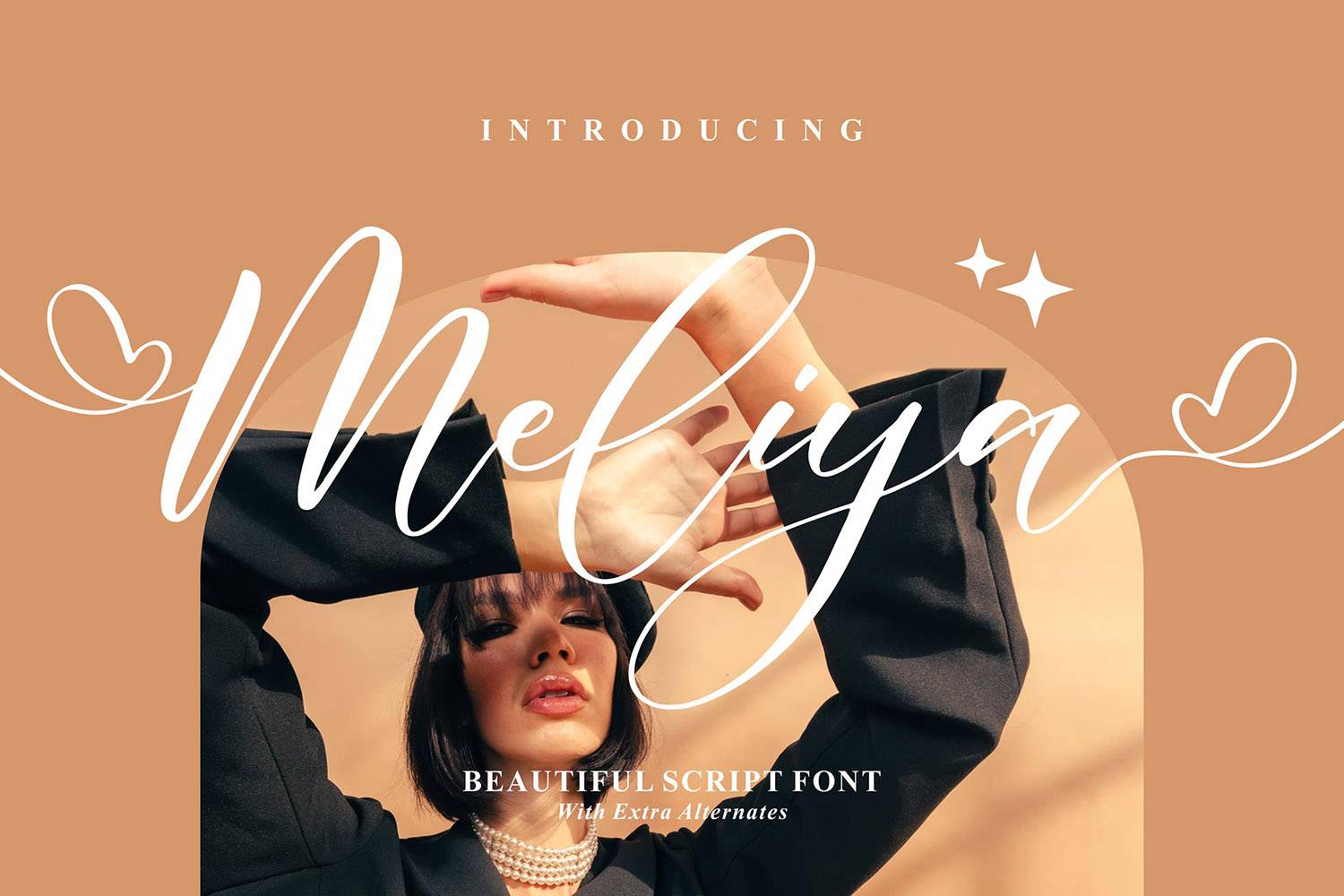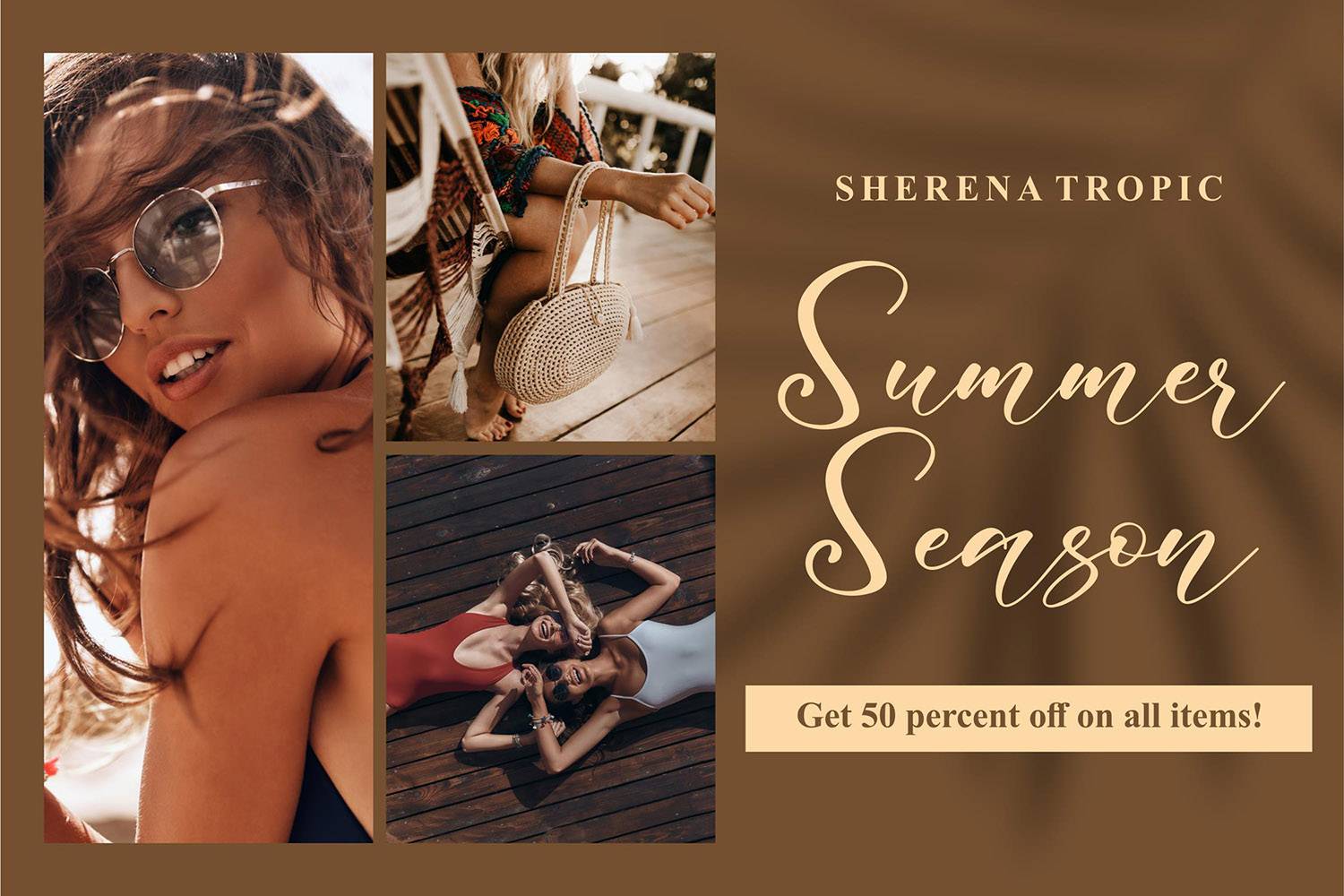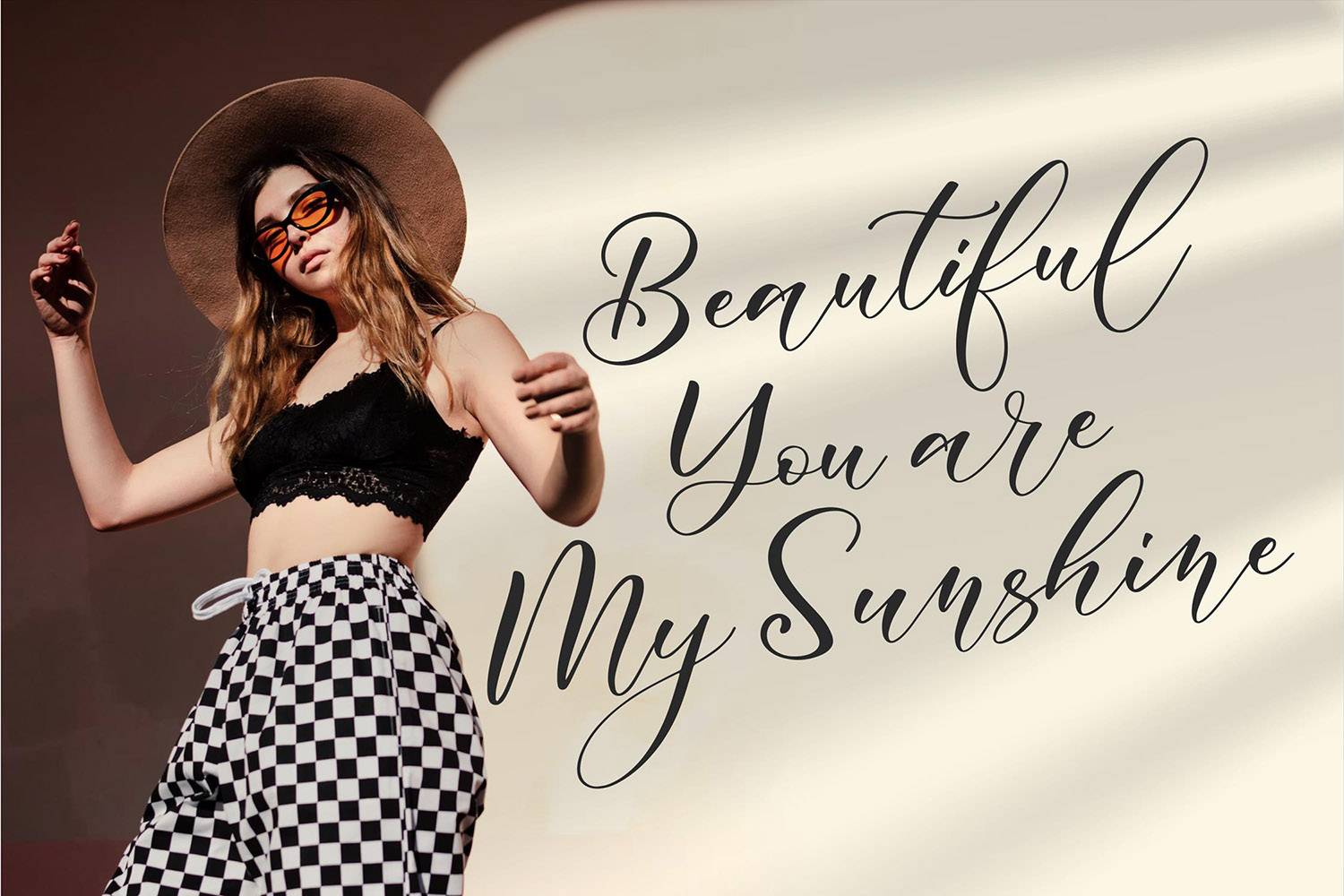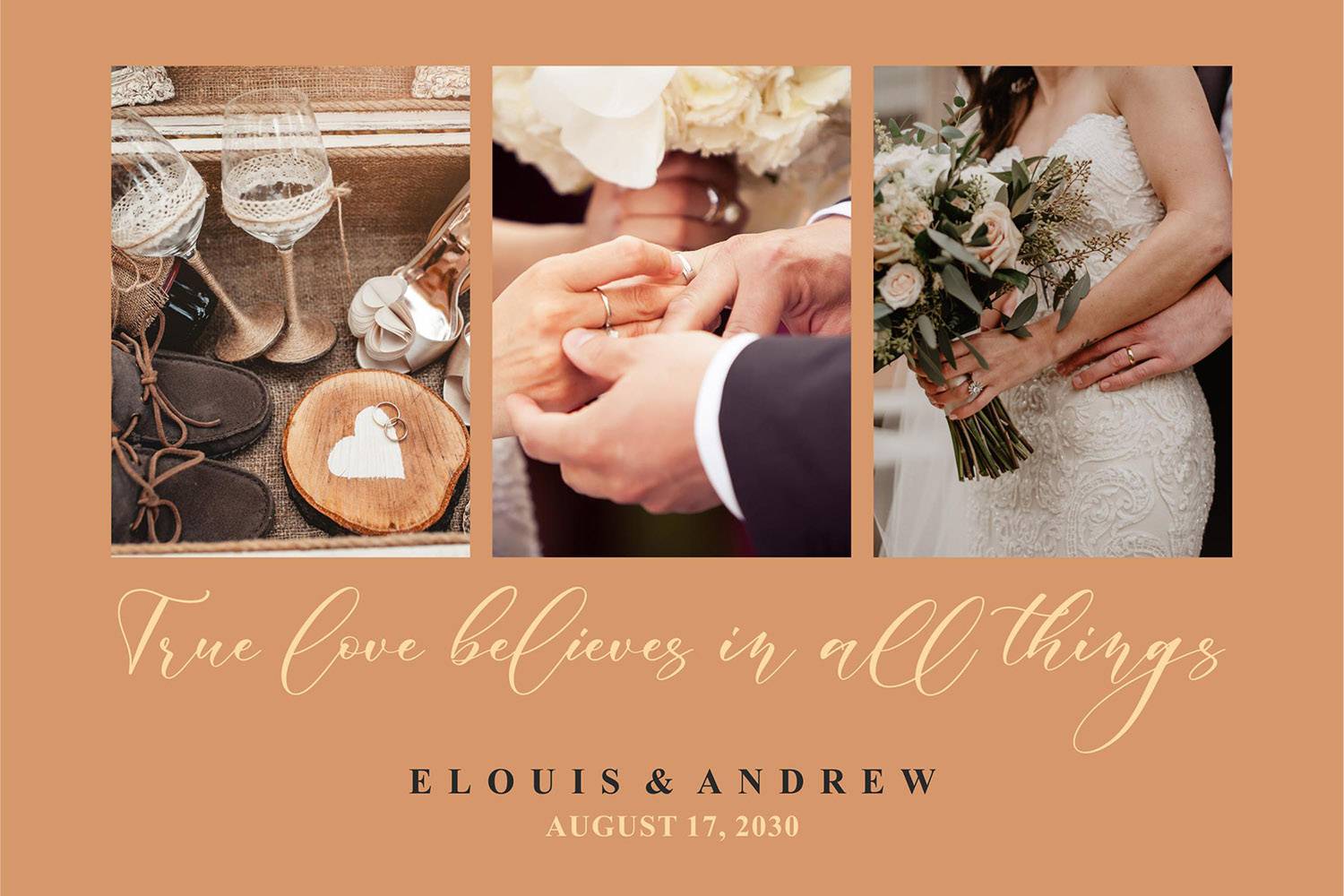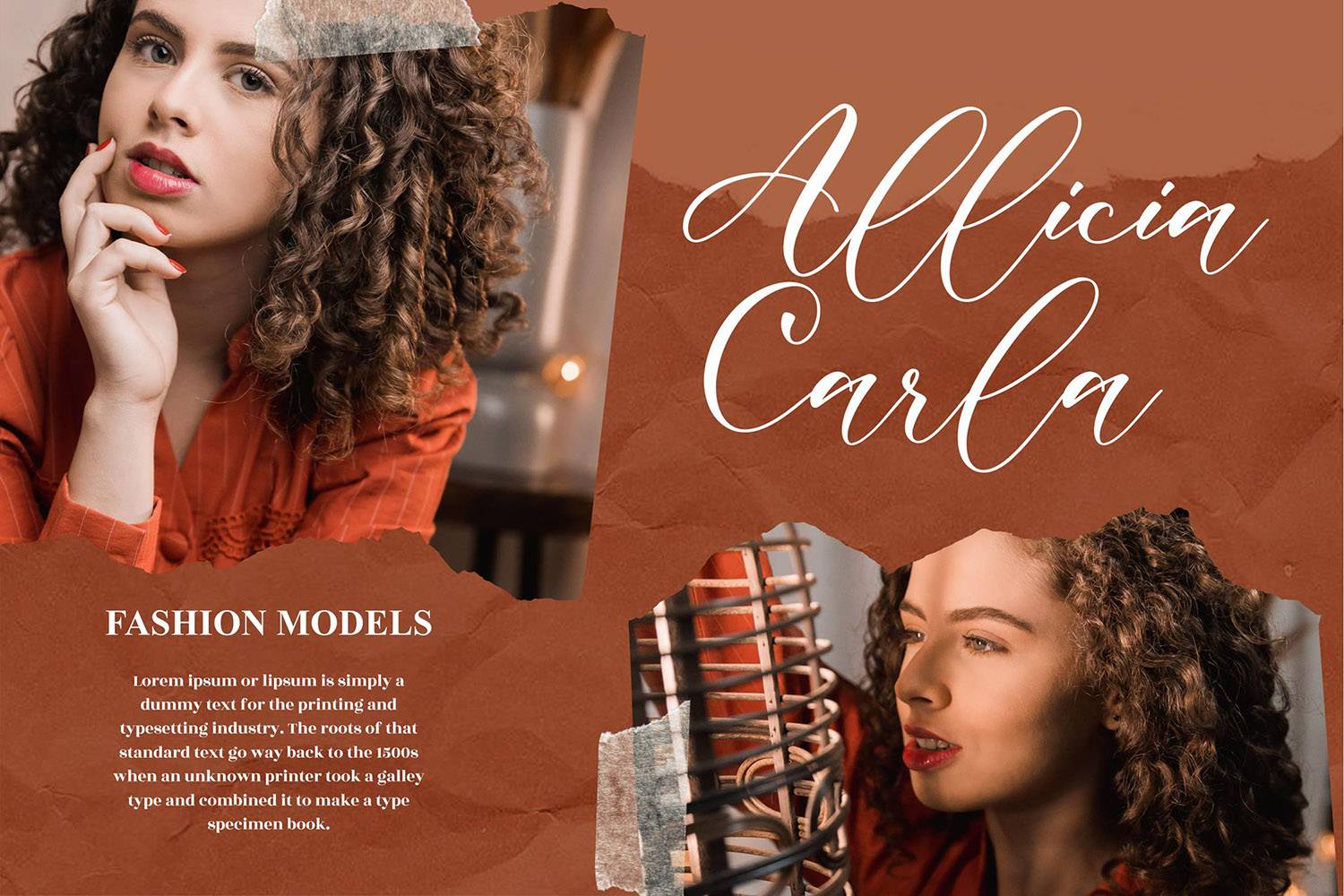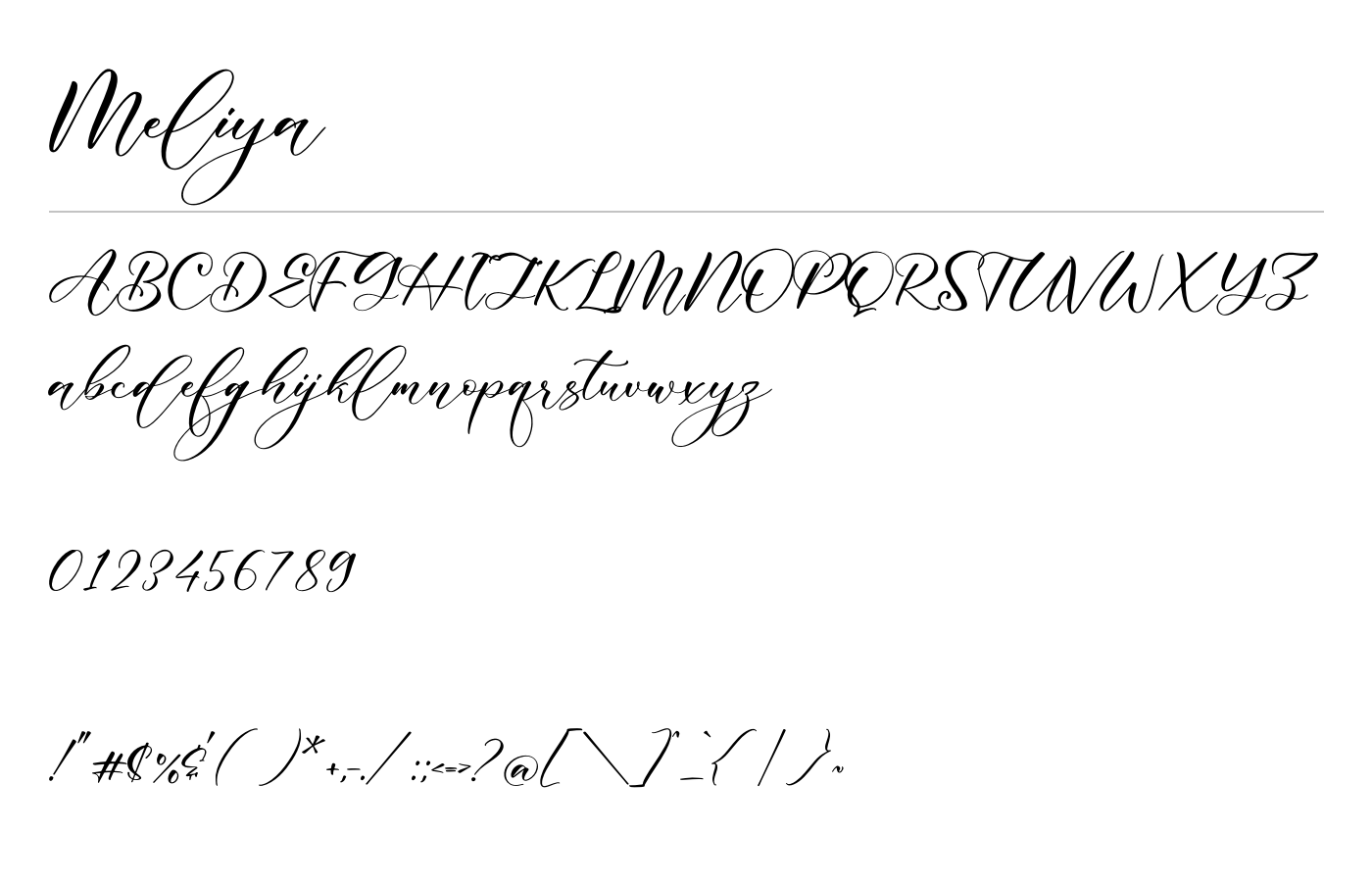
Meliya is an elegant script font with a delicate, flowing style that combines slender strokes and graceful curves, creating a sophisticated and feminine feel. Its high contrast and refined letterforms make it perfect for luxury branding, wedding invitations, and stylish logos where a touch of class and personality is desired. This font shines in display settings where elegance and a handwritten charm are key.
Meliya Font
About Meliya Font